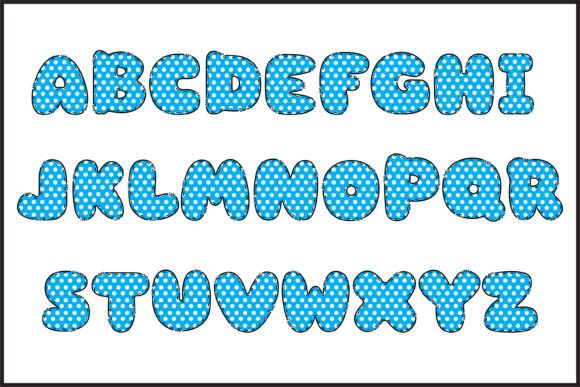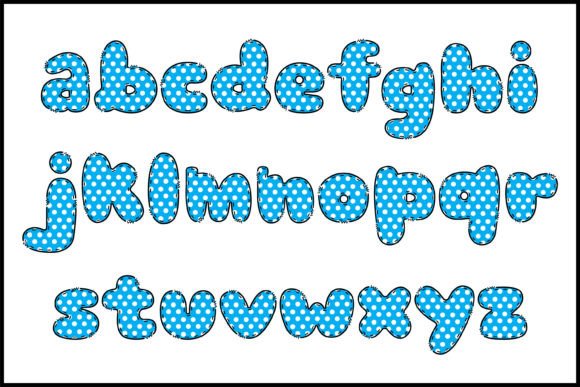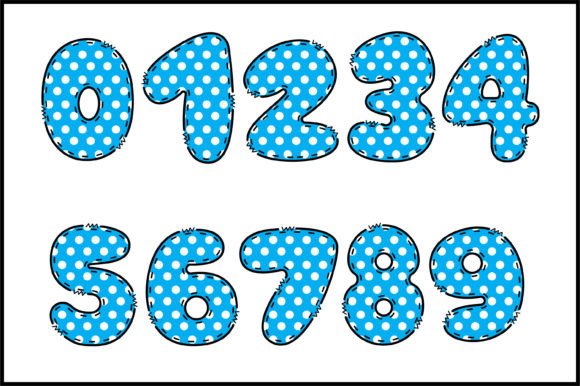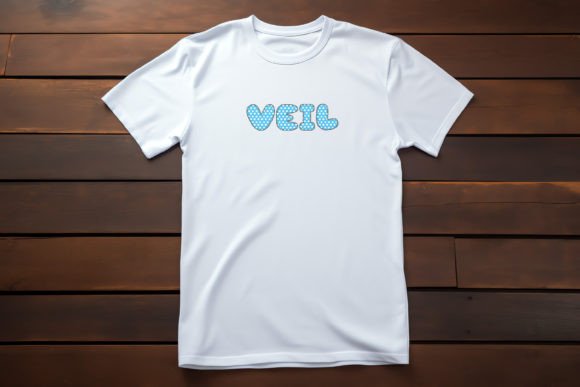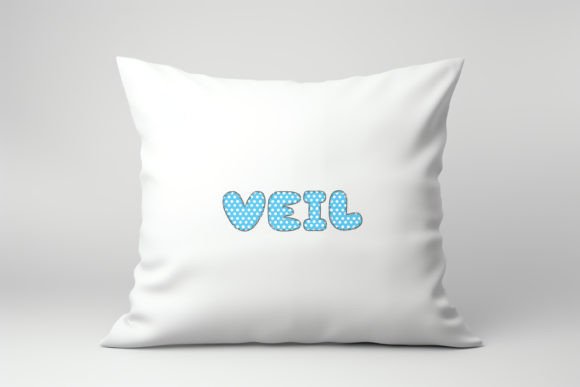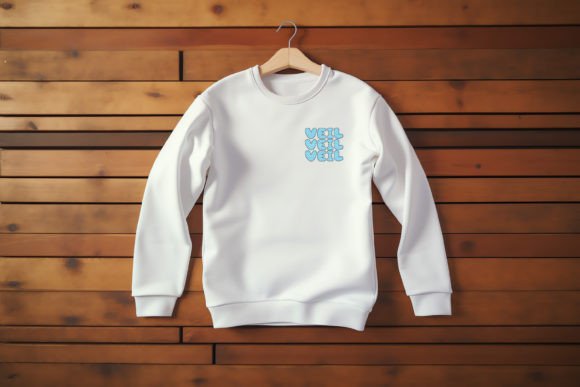
Discover the Magic of Blue Dots Font
Do you remember the first time you saw a font that made you smile? For me, it was a quirky, hand-drawn font that brought a children’s book to life. The combination of playful characters and bright colors sparked my imagination and made reading a joy. This experience sparked a question: what makes a font so special that it can evoke emotions and create a lasting impression?
The answer lies in the Blue Dots Font, a versatile and charming typeface designed to add a touch of whimsy to any design project. With its colorful, hand-drawn aesthetic, this font is perfect for children’s books, posters, invitations, and more. Whether you’re a seasoned designer or just starting out, the Blue Dots Font is a valuable addition to your toolkit, offering endless possibilities for creativity and self-expression.
Blue Dots Font Key Features
- Unique Characteristics: The Blue Dots Font features a distinctive, modern design with subtle texture and subtle gradient effects, giving it a unique and eye-catching appearance.
Designer Review: Blue Dots Font
Overall, I have mixed feelings about the Blue Dots Font. While it has some great qualities, it also has some limitations that might make it less suitable for certain projects.
- Playful and Fun: The Blue Dots Font is perfect for creating a playful and fun atmosphere in designs. Its rounded edges and bubbly dots give it a childlike charm that’s sure to delight.
- Highly Customizable: The font is highly customizable, allowing you to adjust the size, color, and spacing to suit your design needs.
- Wide Compatibility: The font is compatible with most operating systems and devices, making it a great choice for web and print designs.
- Limited Professional Use: Due to its playful nature, the Blue Dots Font may not be suitable for professional or formal designs where a more serious tone is required.
- Lack of Legibility: At smaller font sizes, the dots can become distracting and make the text harder to read.
- Not Ideal for Long Texts: The font’s playful nature makes it more suitable for short texts or headlines rather than long blocks of text.
Overall, the Blue Dots Font is a great choice for playful and fun designs, but it may not be the best fit for more serious or professional projects.
The Blue Dots font is ideal for:
– Creating eye-catching titles and headings.
– Adding a playful touch to digital designs.
– Enhancing the visual appeal of branding materials.
For optimal results, pair the Blue Dots font with clean and simple designs. Experiment with different font sizes, colors, and styles to create a unique visual identity.
Alternatives to Blue Dots Font
Pacifico is a beautiful script font that is perfect for creating a warm and inviting atmosphere. It is ideal for use in logos, branding materials, and other design elements where a touch of elegance is desired. Compared to Blue Dots Font, Pacifico has a more refined and sophisticated look, making it a great choice for high-end designs.
Great Vibes is a modern script font that is great for creating a fun and energetic vibe. It is perfect for use in social media graphics, advertising materials, and other designs where a playful touch is needed. Compared to Blue Dots Font, Great Vibes has a more casual and laid-back look, making it a great choice for designs that require a relaxed atmosphere.